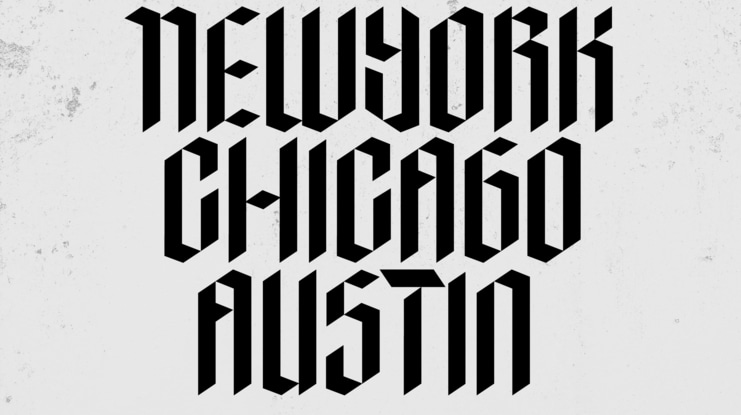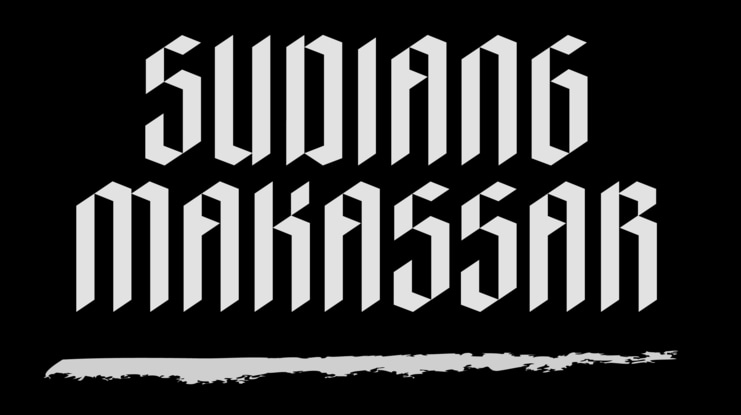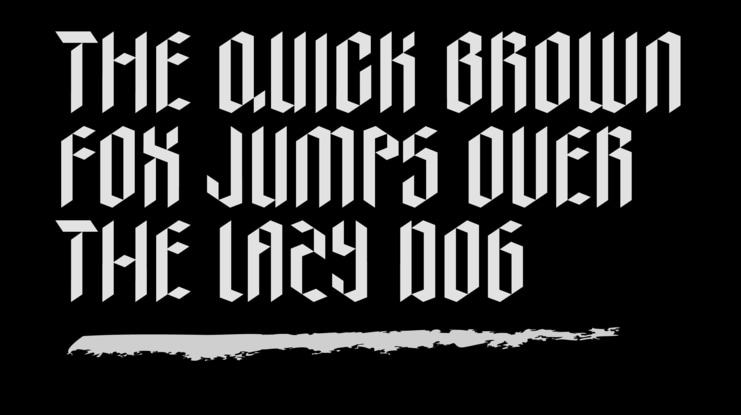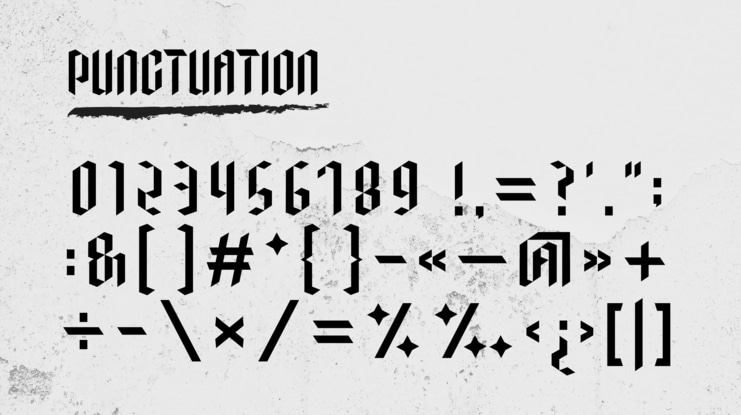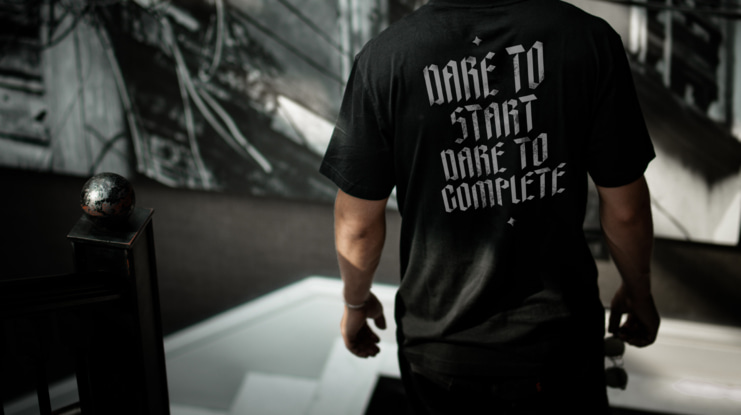
AbjaD - Modern Gothic Font
ABJAD is a display font with a gothic style made with a more modern touch, perfect for your design projects such as merchandise, posters, book headlines, logos, etc. ABJAD is equipped with uppercase, numbers, punctuation, multilingual and unique alternate